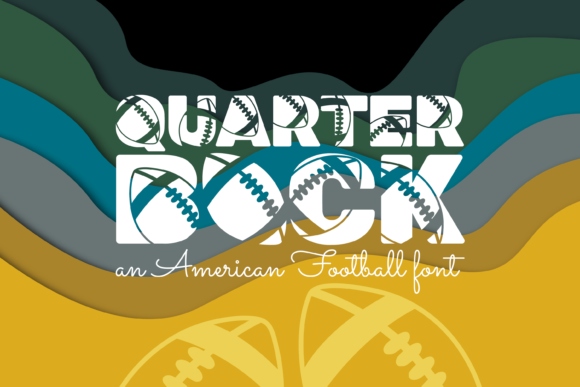
Welcome to the realm of Quarterback Font, a decorative masterpiece that will ignite your creativity and elevate your designs to unprecedented heights. Crafted with meticulous precision by the renowned WADLEN, this extraordinary font family is the perfect choice for those seeking to make a bold and unforgettable statement.
Quarterback Font possesses an inherent charm that effortlessly captivates the beholder. Its simple yet striking lines dance across the screen, creating a visual symphony that is both elegant and eye-catching. Whether you're a seasoned designer or just starting your creative journey, this font will empower you to unleash your imagination and leave an indelible mark on your audience.
Imagine the possibilities that await you with Quarterback Font. Showcase your latest designs with an air of sophistication, add a touch of whimsy to personal projects, or elevate your marketing materials to the next level. The versatility of this font knows no bounds, inviting you to explore countless creative avenues and express yourself in a way that resonates with your unique style.
When you choose Quarterback Font, you're not just downloading a set of characters; you're embracing a tool that will ignite your passion and fuel your creativity. With its innate ability to transform ordinary words into works of art, this font will become your trusted companion on any creative endeavor.
So why settle for ordinary when you can embrace the extraordinary? Let Quarterback Font be your guide as you embark on a journey of self-expression and artistic fulfillment. Its powerful presence will captivate your audience, leaving a lasting impression that will forever be etched in their minds.